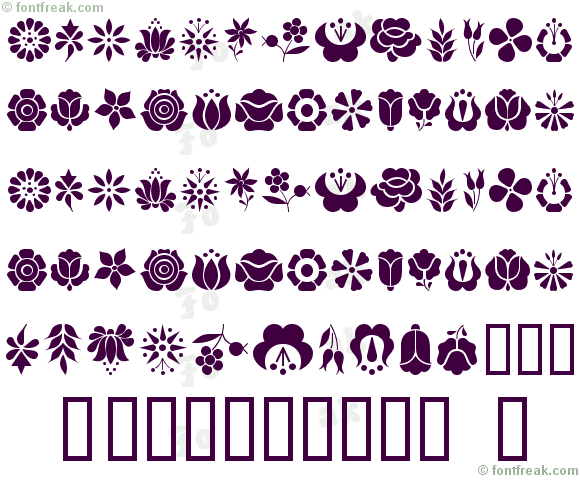
Kalocsai Flowers
About Kalocsai Flowers
Kalocsai Flowers, designed by Levi in 2001, is a delightful decorative font that captures the essence of traditional Hungarian folk art. This font features a unique array of floral motifs, making it an ideal choice for projects that seek to convey a sense of charm and whimsy. The visual characteristics of the Kalocsai Flowers font include bold stroke weights and high contrast, allowing the floral elements to stand out beautifully. The spacing between the motifs is well-considered, ensuring that each design is distinct while still creating a cohesive flow when used in text.
This font is perfect for a variety of use cases. It shines in wedding invitations, where its floral designs can add a romantic touch. Additionally, it suits greeting cards and scrapbook projects, providing an artistic flair that appeals to those looking for a personal touch. Restaurant menus can also benefit from the Kalocsai Flowers font, particularly for establishments that want to evoke a warm, inviting atmosphere. Furthermore, it can be used in branding for small businesses that focus on handmade or artisanal products, helping them stand out in a crowded market.